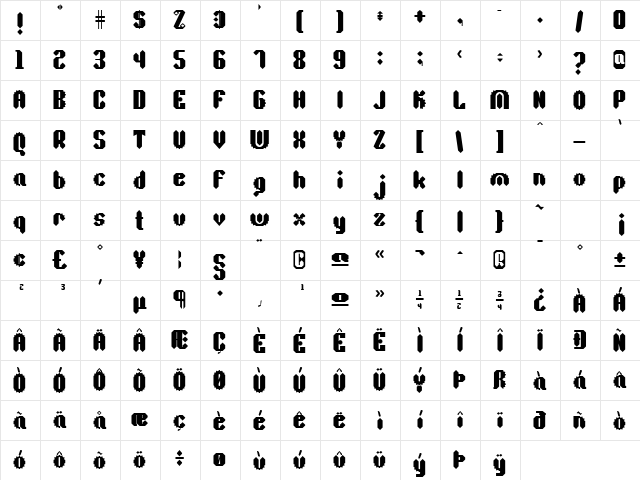
Sprokett Outerkog Regular
Design Context for Sprokett Outerkog Typeface
Sprokett Outerkog is a composed and adaptable typeface that performs quietly and consistently across a wide range of design contexts.